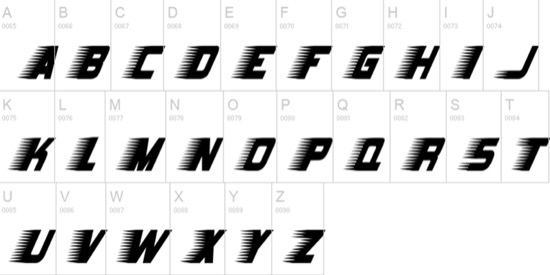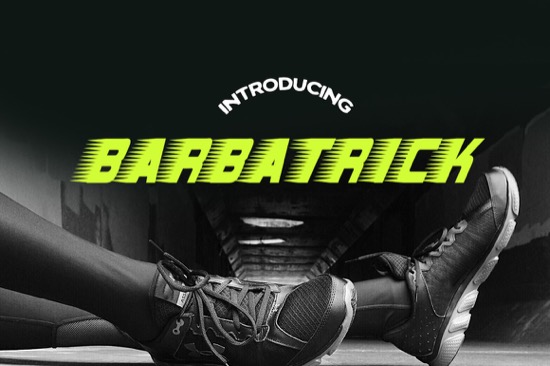
Revolutionizing the typeface world, Barbatrick is presented a modern stylish-inspired display font. It encapsulates the dynamic boldness of science-fiction. Meant to simulate speed lines pointed by the wind, this decorative all caps font is ideal for sports themes and more.
Barbatrick Display Font
Barbatrick Font